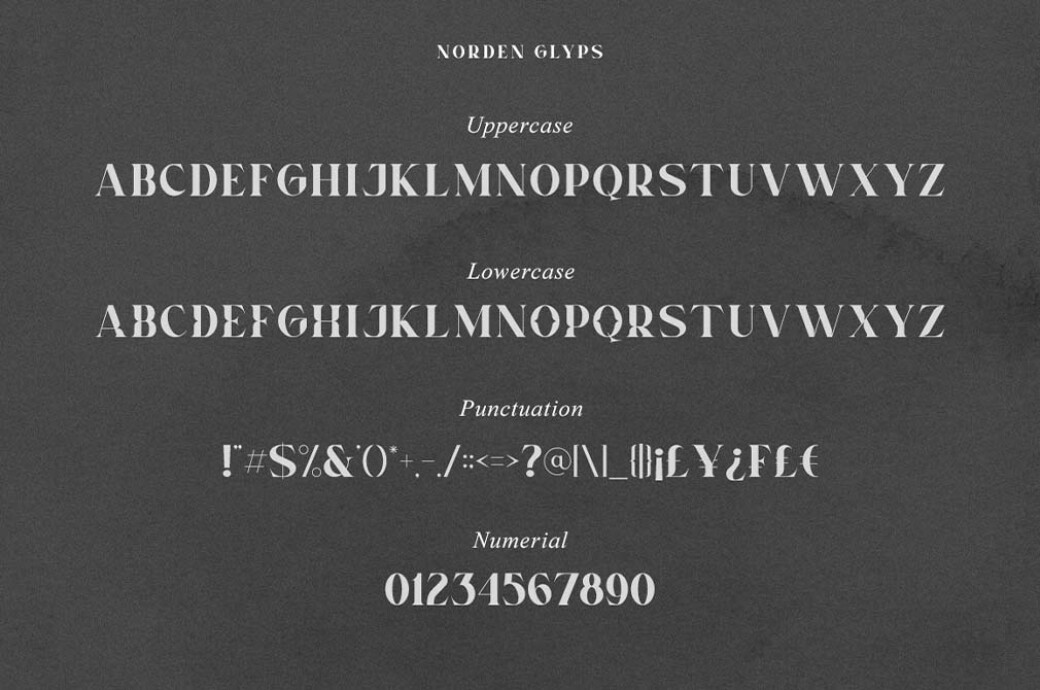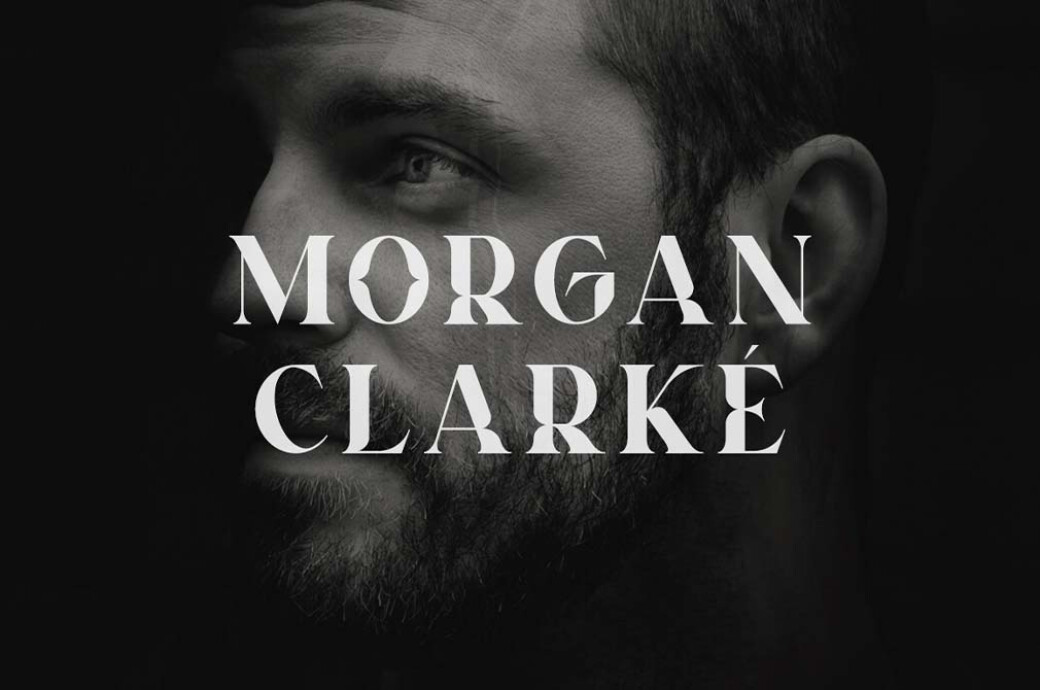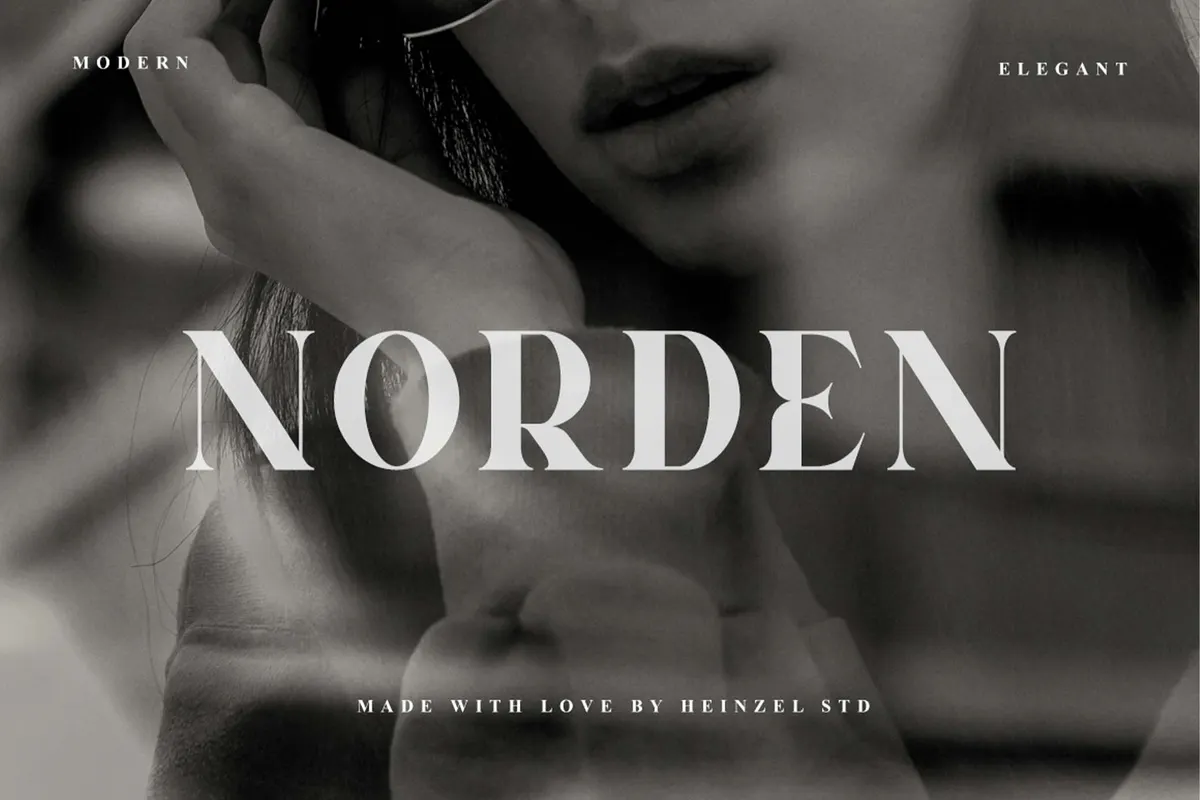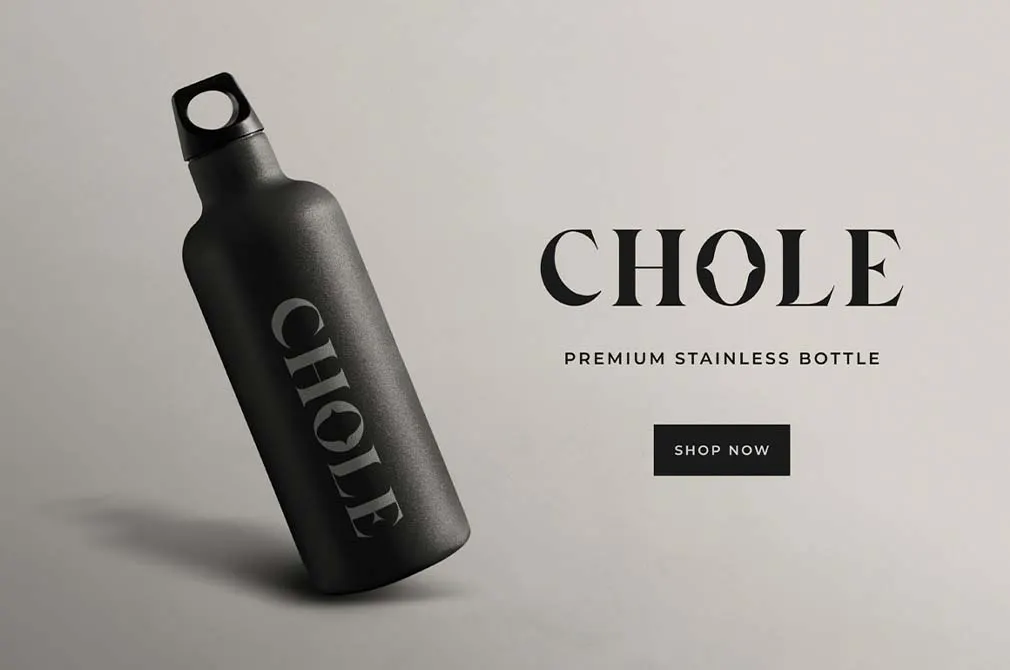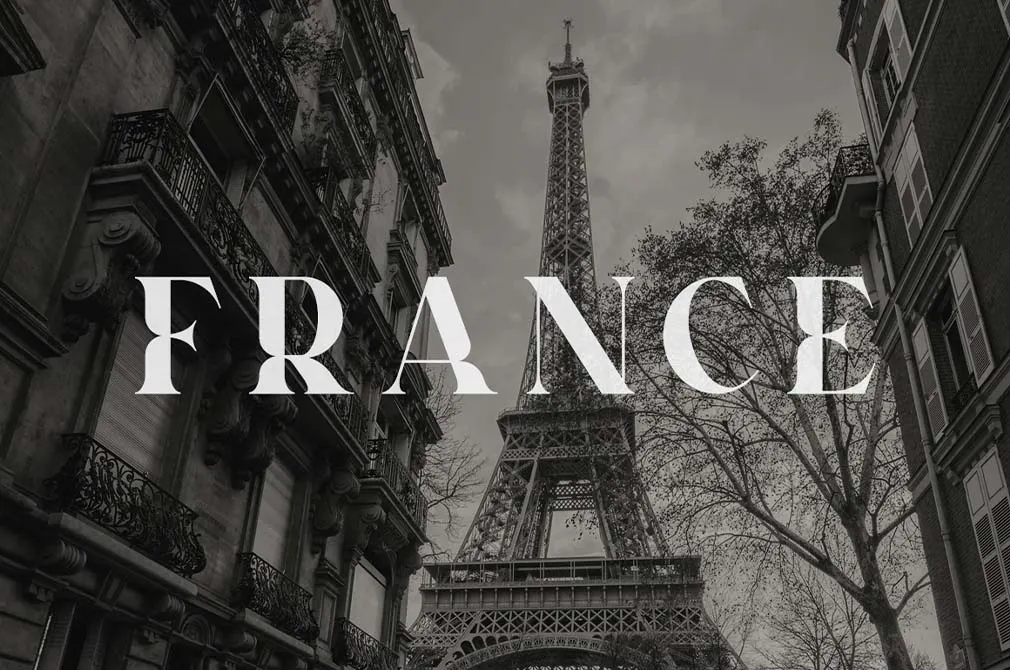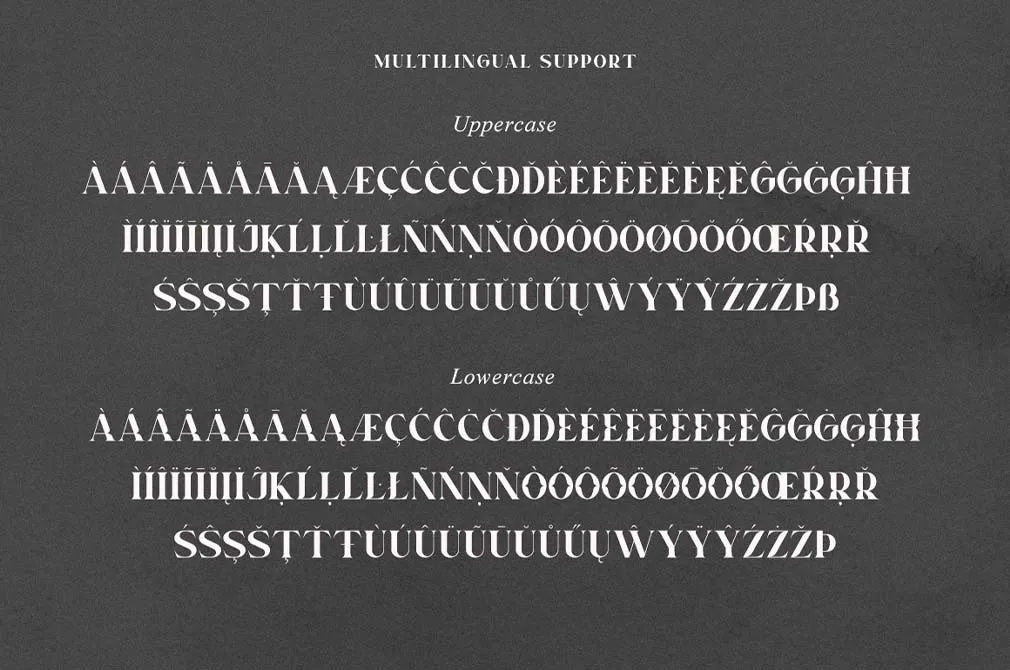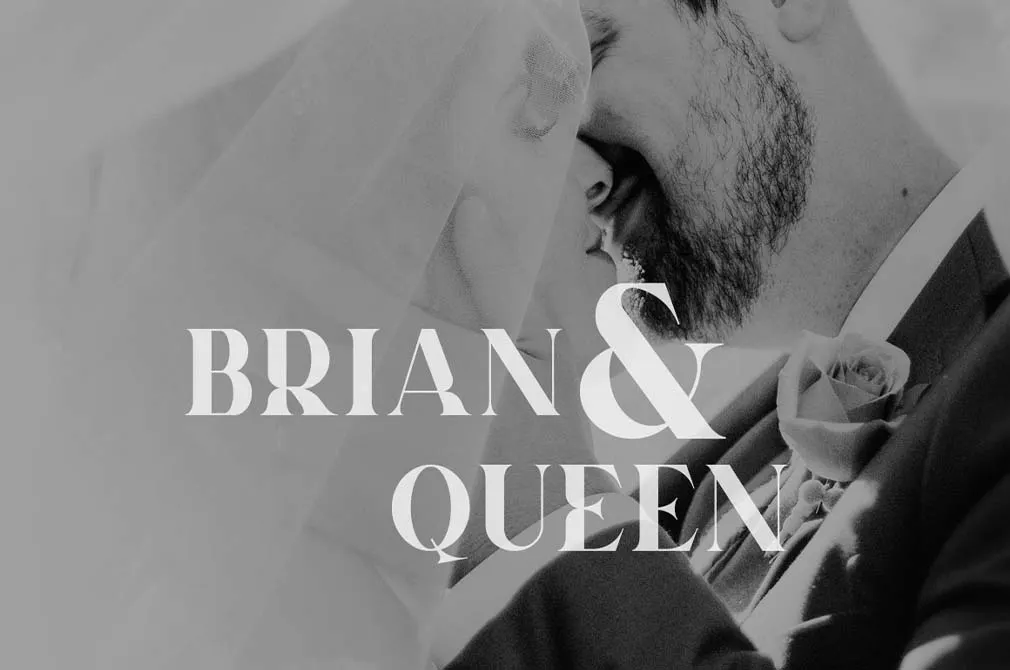
Norden — Modern Serif Font
Pure Scandinavian aesthetics meets modern typography. Once they're merged, Norden is born, a deeply fascinating all-caps serif.This typeface is brought from Hyggee magazines, yet its classy vibes are definitely from some high fashion catalogs. It's a perfect addition to a branding designer's collection, as it easily amps up concepts and real projects, editorials, promos, and advertising. Norden includes a set of uppercase letters, numbers, punctuation, and international characters.